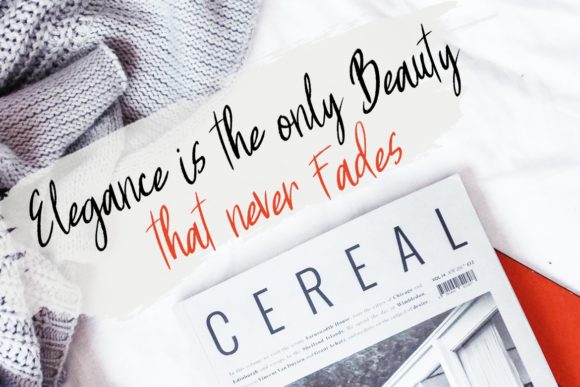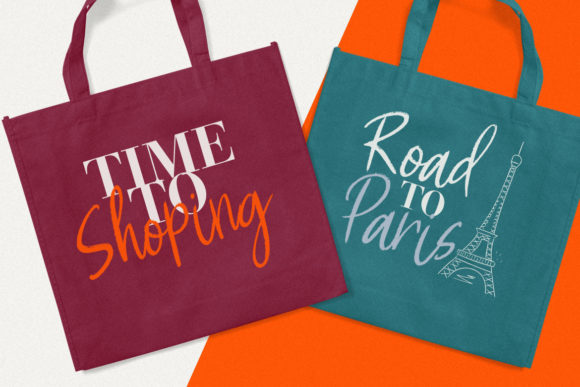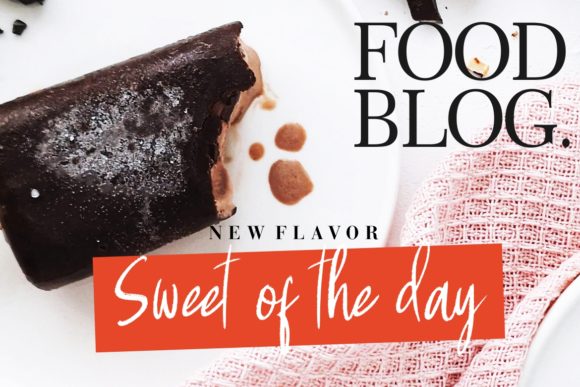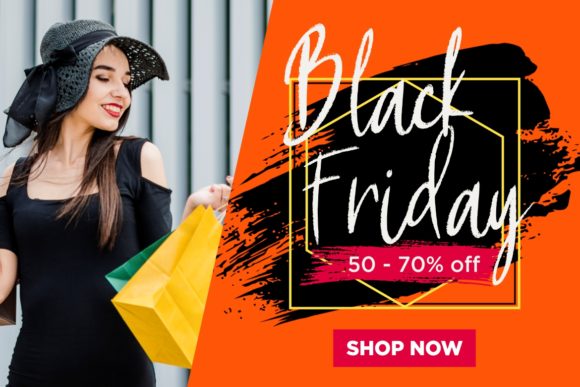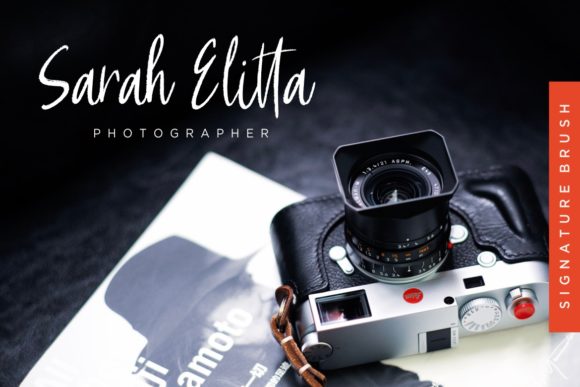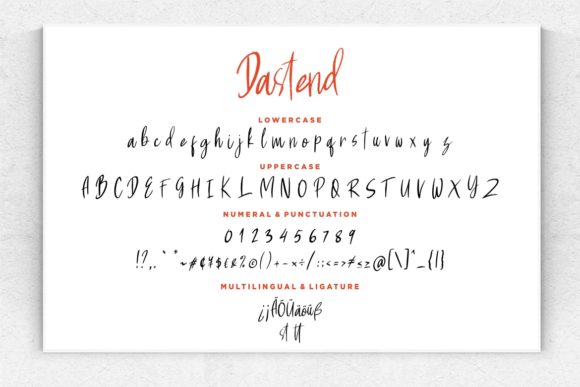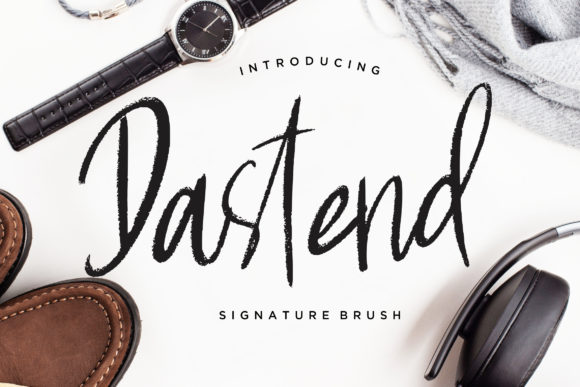
Dastend Font: Unleash Your Creativity with this Stunning and Bold Script
Are you a designer or crafter looking for a font that can add a touch of wildness to your creative projects? Look no further than the Dastend Font. This stunning and bold script is perfect for those who want to make a statement with their designs. In this article, we’ll take a closer look at the Dastend Font, its features, and how you can use it to take your designs to the next level.
What is Dastend Font?
Dastend Font is a beautiful and bold script that has a wild feel to it. It’s perfect for designers and crafters who want to add a touch of personality to their projects. The font has a unique and eye-catching style that is sure to grab attention. Whether you’re working on a branding project, a website design, or a craft project, Dastend Font is a great choice.
Features of Dastend Font
So, what makes Dastend Font so special? Here are some of its key features:
- Bold and Stunning: Dastend Font is a bold and stunning script that is sure to make a statement. Its unique style is perfect for designers who want to add a touch of drama to their designs.
- Wild Feel: The font has a wild feel to it, which makes it perfect for projects that require a touch of personality and whimsy.
- High-Quality: Dastend Font is a high-quality font that is designed to look great on any device or medium.
Design Ideas Using Dastend Font
Dastend Font is a versatile font that can be used in a variety of design projects. Here are some ideas to get you started:
- Branding: Use Dastend Font to create a bold and eye-catching logo for your brand.
- Website Design: Add a touch of personality to your website with Dastend Font. Use it as a headline font or to add emphasis to certain elements on your site.
- Crafting: Dastend Font is perfect for crafters who want to add a touch of personality to their projects. Use it to create custom signs, cards, and other crafts.
- Social Media: Use Dastend Font to create eye-catching social media graphics that are sure to grab attention.
Dastend Font is a stunning and bold script that is perfect for designers and crafters who want to add a touch of personality to their projects. With its unique and eye-catching style, it’s sure to grab attention. Whether you’re working on a branding project, a website design, or a craft project, Dastend Font is a great choice. So why not give it a try and see how it can take your designs to the next level?
- Dastend Font is a bold and stunning script with a wild feel.
- It’s perfect for designers and crafters who want to add a touch of personality to their projects.
- Dastend Font can be used in a variety of design projects, including branding, website design, crafting, and social media.